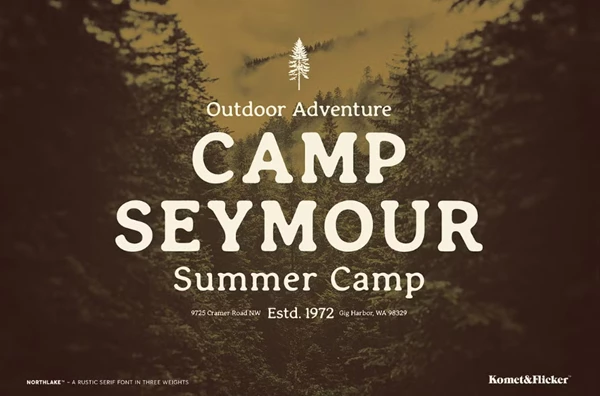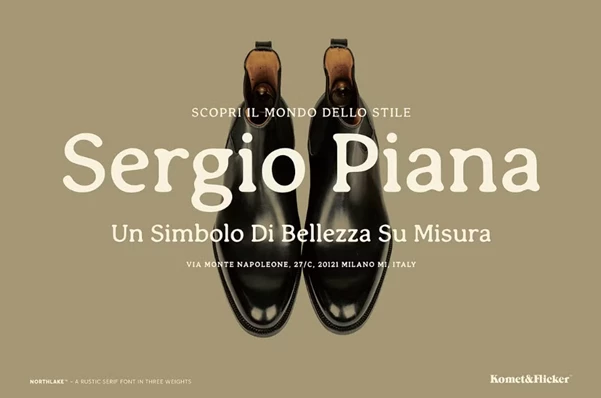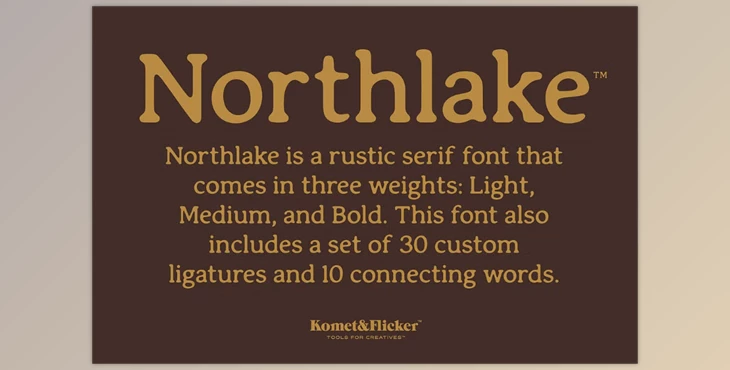
Northlake - A Rustic Serif Font:
Exuding vintage charm and a rustic appeal is Northlake, our new serif font.
Northlake, with its smooth and round edges, can warm and bring authenticity to any project be it a headline or longer text. This versatile font with a distinctive personality can be used for nearly all types of design work.
Some great features of Northlake - A Rustic Serif Font:
- Three Weights: Light, Medium and Bold. Pick any to best fit your design.
- Rounded Edges: Northlake’s Sans family has characters with rounded edges that blend perfectly with solid serifs, marking tradition and strength.
- Custom Ligatures: 30 sophisticated designs with custom ligatures specifically tailored for your font that create a calm and cohesive style having smooth transitions improving the overall look of your typography.
- Connecting Words: 10 of the most frequent and useful connecting words such as “the,” “and,” or ‘with’ to guarantee smooth rhythm and flow in the text providing ease and comfort.
- Comprehensive Character Set: Brilliantly contains all basic Latin A-Z Upper case characters, some characters used for Europe, certain symbols, numerals, punctuation.